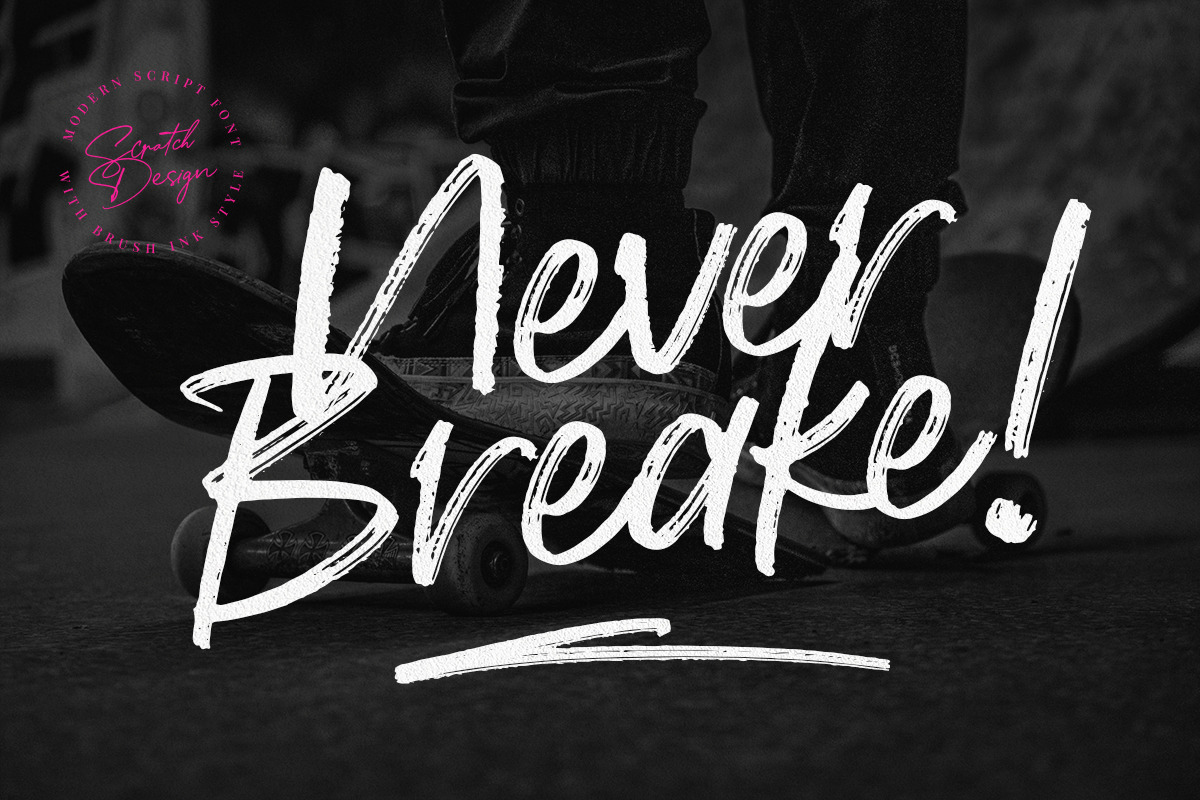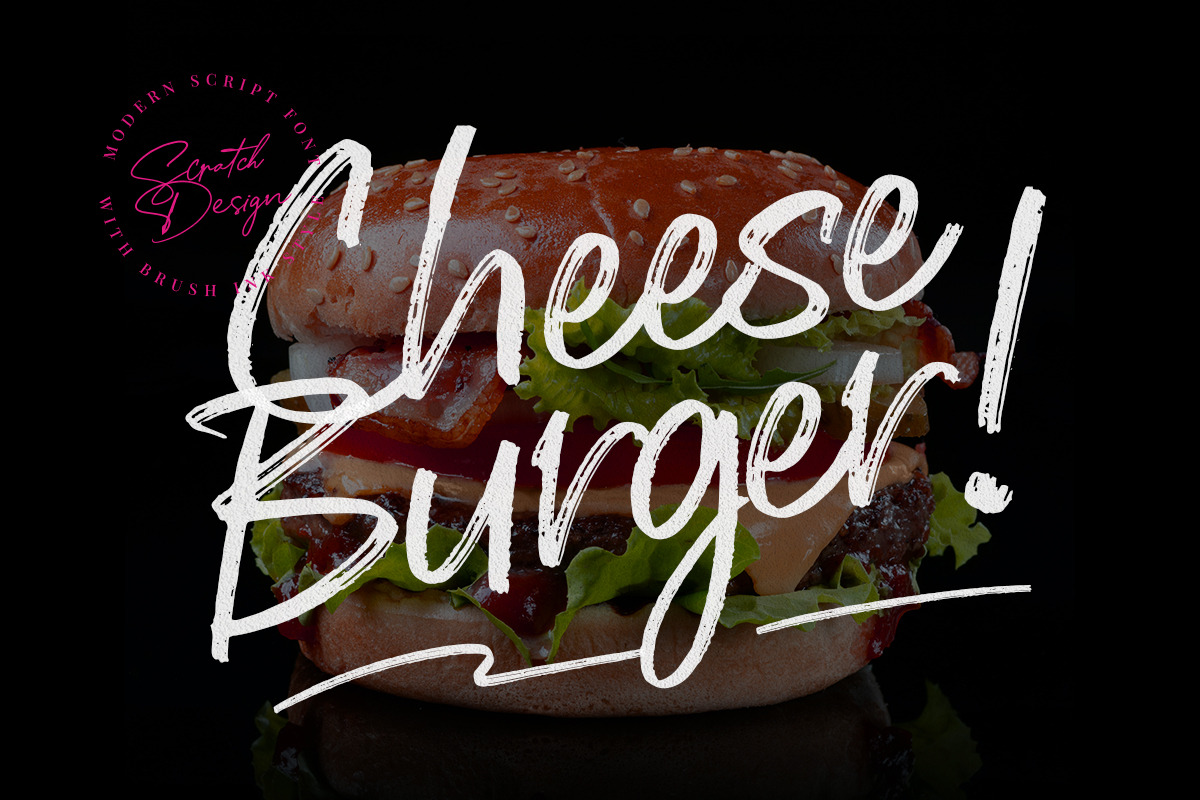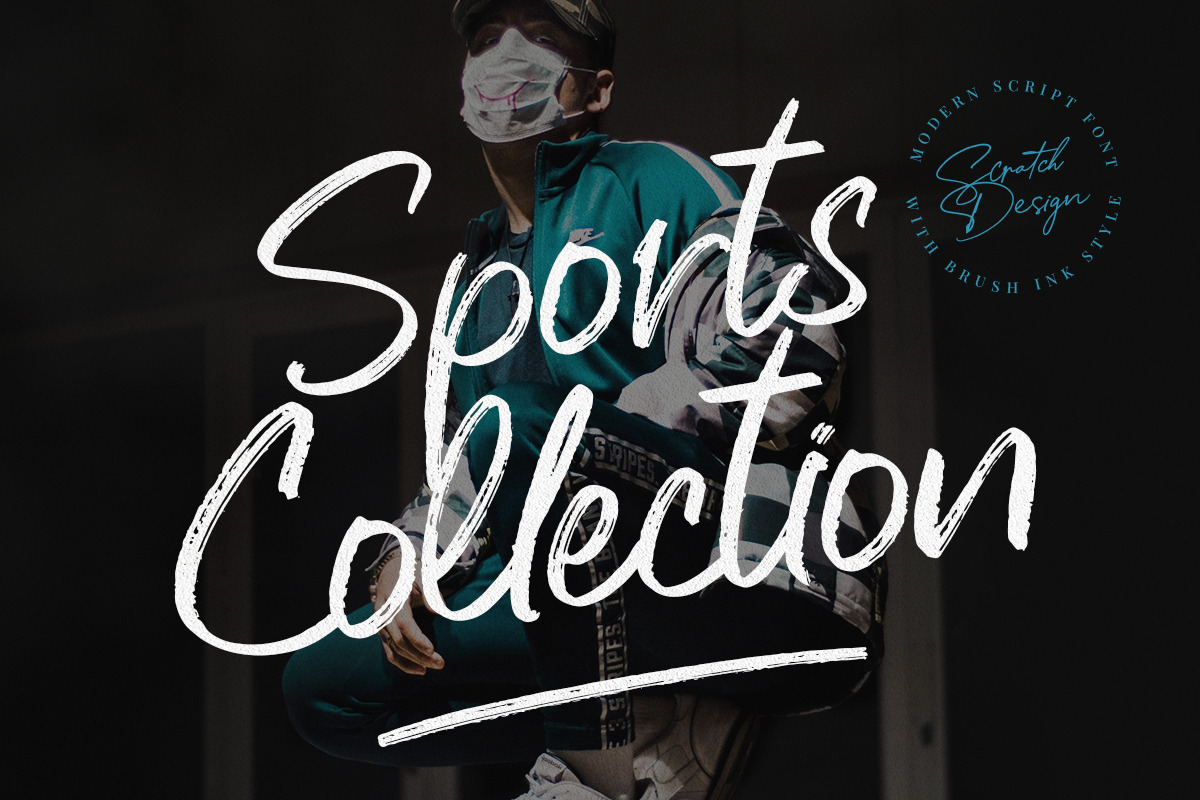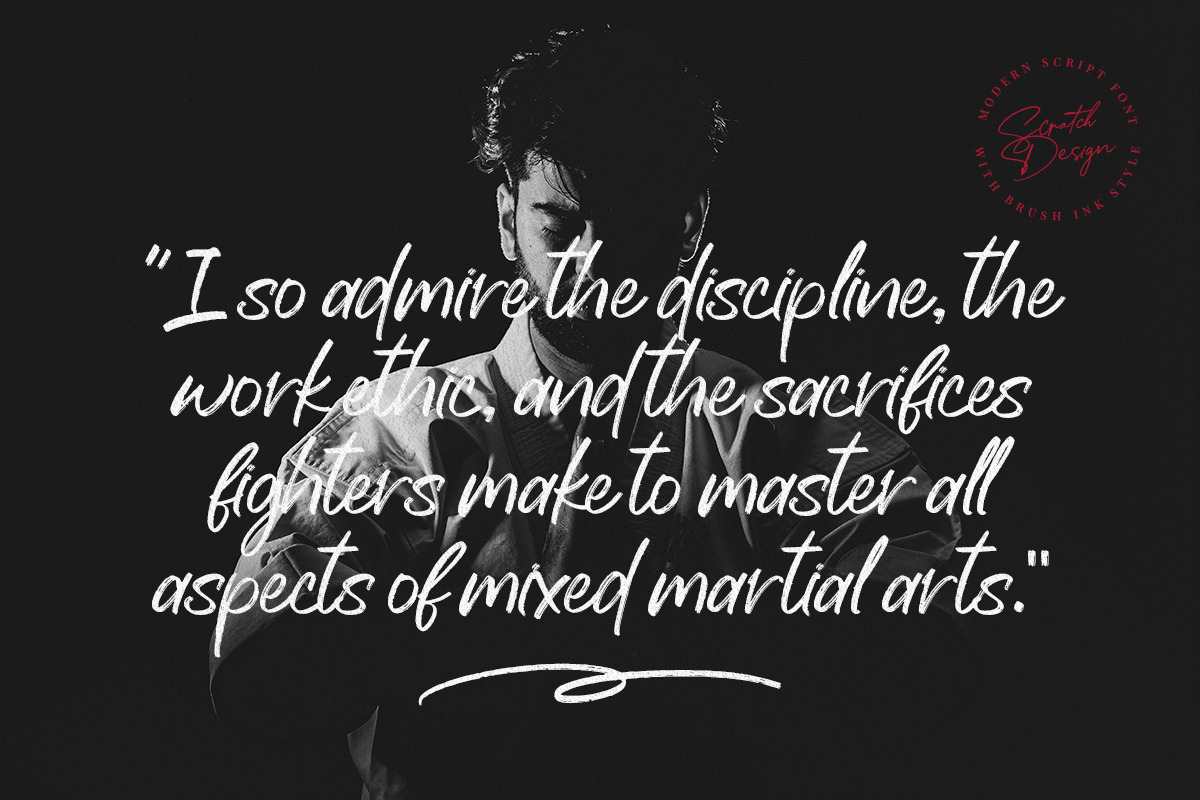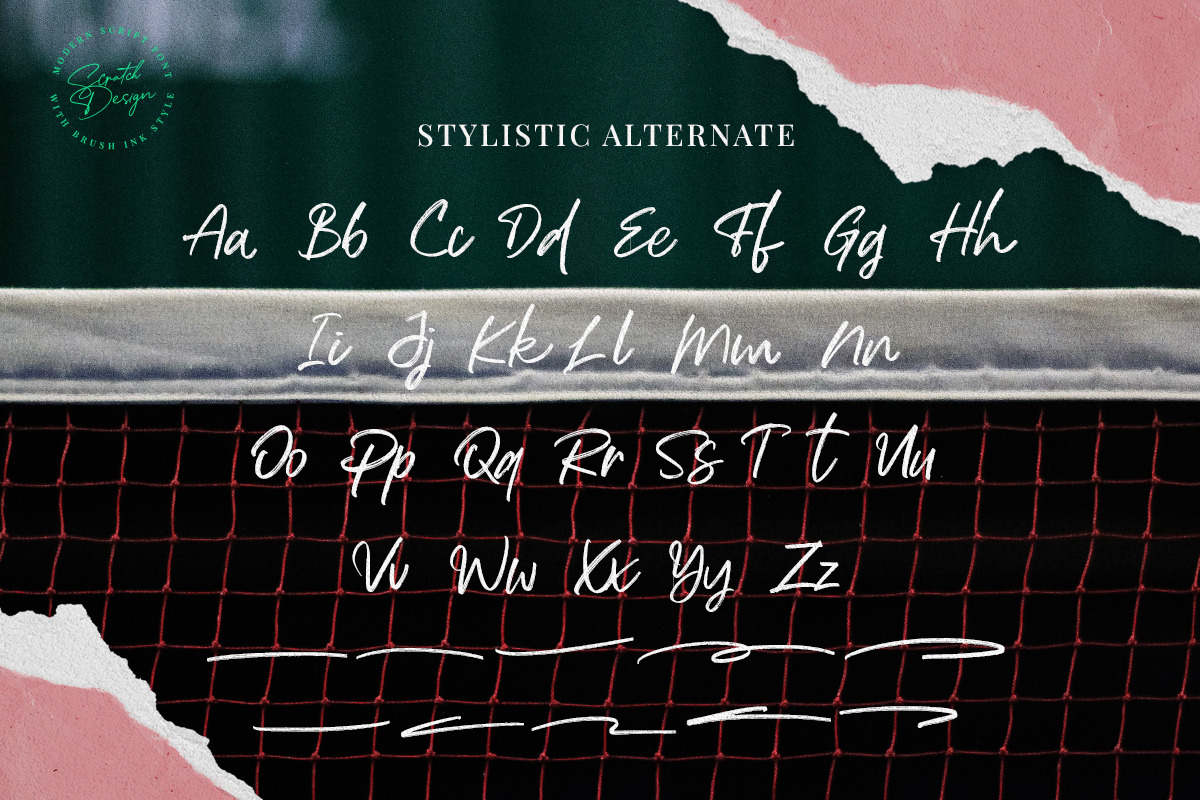
Backhand - Script
Introducing Backhand! It's a modern script font with texture brushed ink style. It's highly recommended for you who want to make some designs with texture in font style. This font will work for invitation design, logos, badge design, poster, packaging, book cover title, quote, social media post, etc. Just open your Opentype features while using the script font to use the ligatures and swashes. Also, this font includes alternates for uppercase and lowercase characteristics.
Features: Accents (Multilingual characters) Ligatures Swashes Numerals and Punctuations